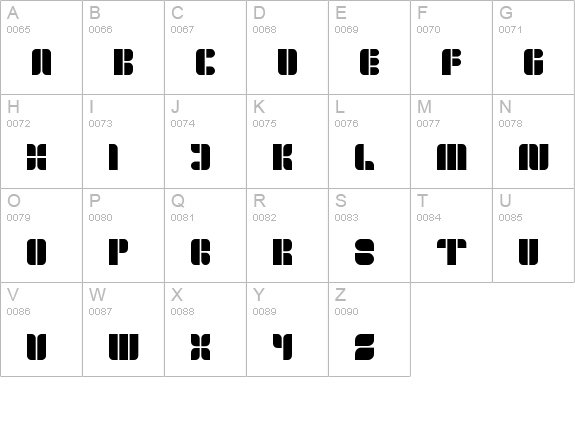
golden bar Font Details
golden bar is a free for personal use font in the Modern > Stencil category. It has been downloaded 11 times and is available for Windows, Mac and Linux.
Golden Bar Font is a mesmerizing typeface that exudes elegance and sophistication. With its beautifully crafted letterforms, this font captures the essence of luxury and opulence. Each character is meticulously designed to showcase a golden bar-like structure, giving it a unique and glamorous appearance. This font is perfect for creating stunning headlines, invitations, logos, and any design project that requires a touch of grandeur. Its bold and striking presence demands attention and instantly elevates any piece of artwork. What makes Golden Bar Font even more enticing is that it is absolutely free to download at FontsMarket.com. This means that you can add a touch of luxury to your designs without breaking the bank. Whether you are a professional designer or a creative enthusiast, this font is a valuable addition to your collection. Featuring a wide range of characters, including uppercase letters, numbers, punctuation marks, and special symbols, Golden Bar Font offers endless possibilities for creativity. Its versatility allows it to be used in various design contexts, from high-end branding to elegant wedding stationery. Impress your audience and make a lasting impression with the Golden Bar Font. Download it for free today at FontsMarket.com and let your designs shine with the allure of gold.